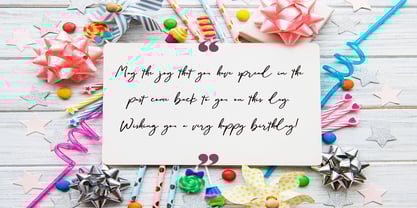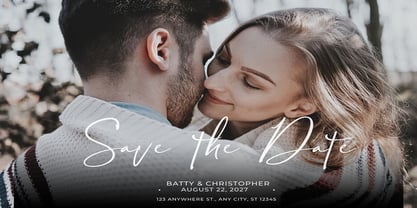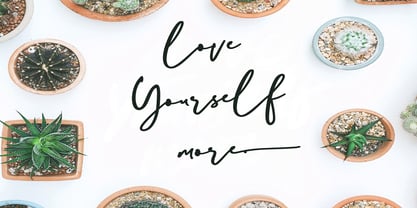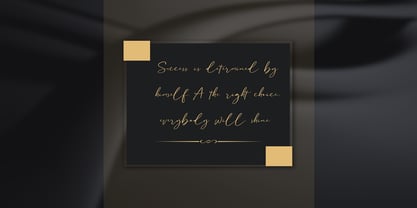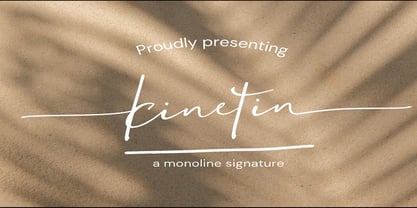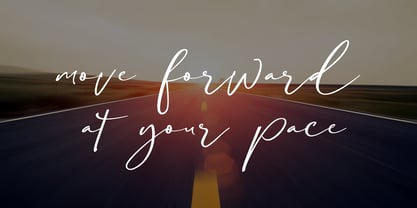
Kinetin
The Kinetin Font Family was designed by Mark Jamra and published by Dream Font. Kinetin contains 1 styles. More about this family
kinetin Script has a full set of alternate characters for both the uppercase and lowercase characters - feel free to switch as you please to give the typeface a more natural look. To add to this natural look, a selection of commonly occuring Truetype ligatures are also included - as you type - unique double letter combinations will appear